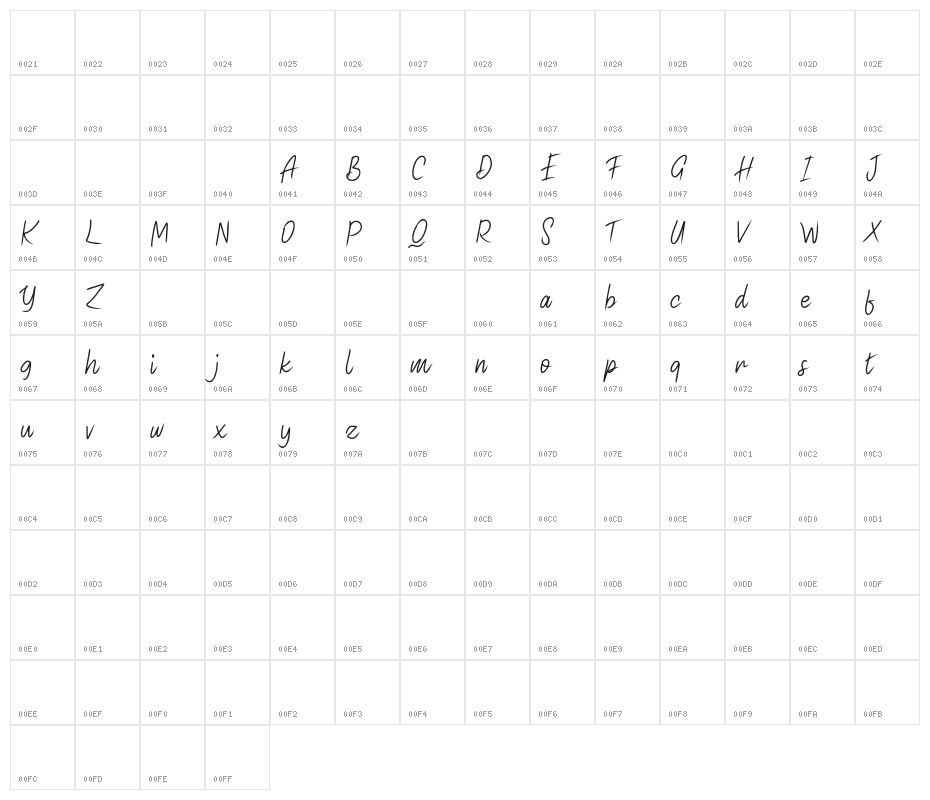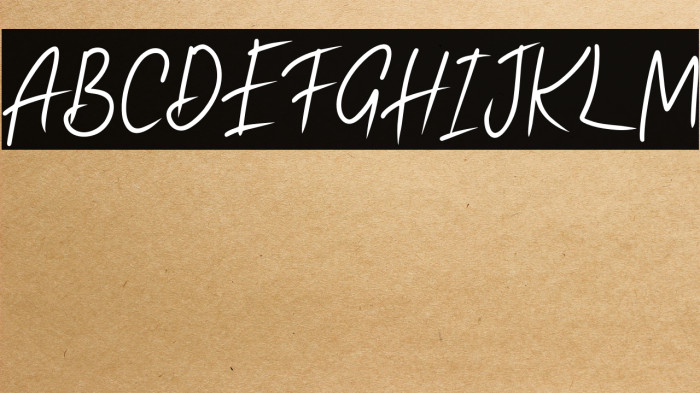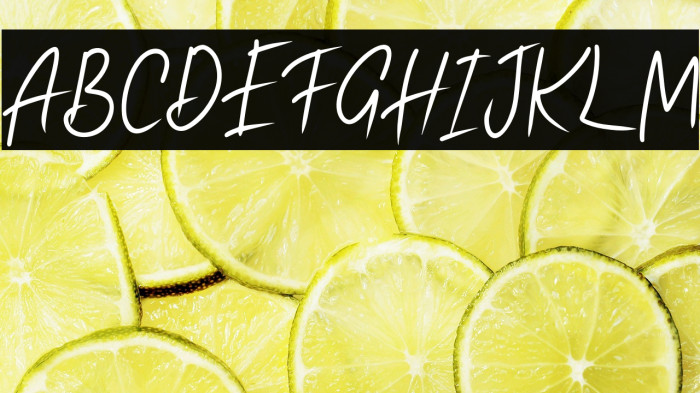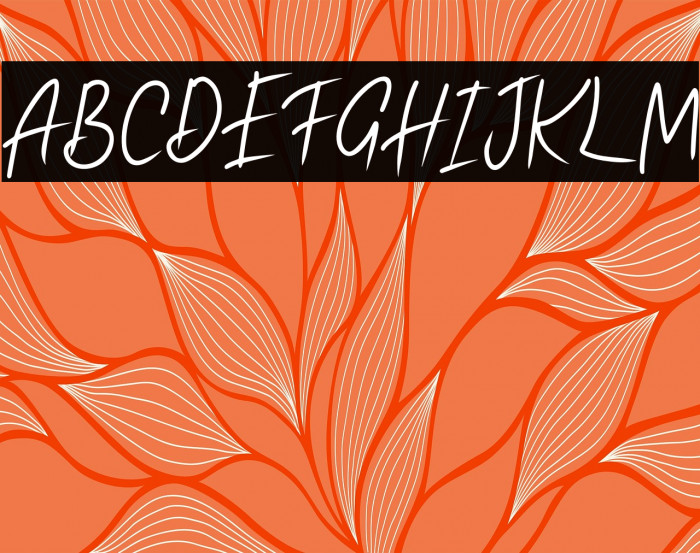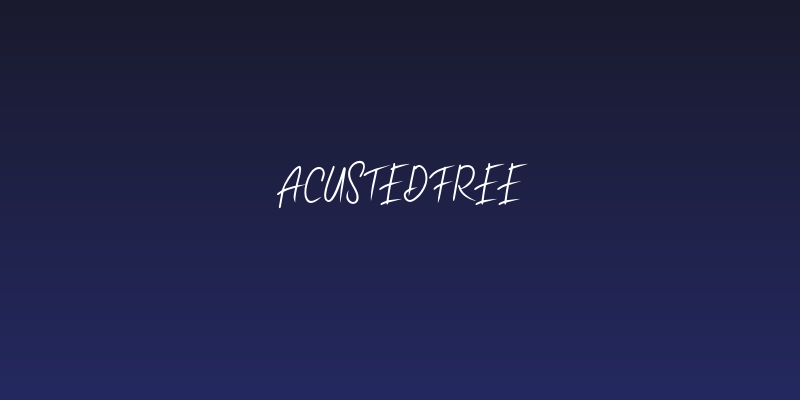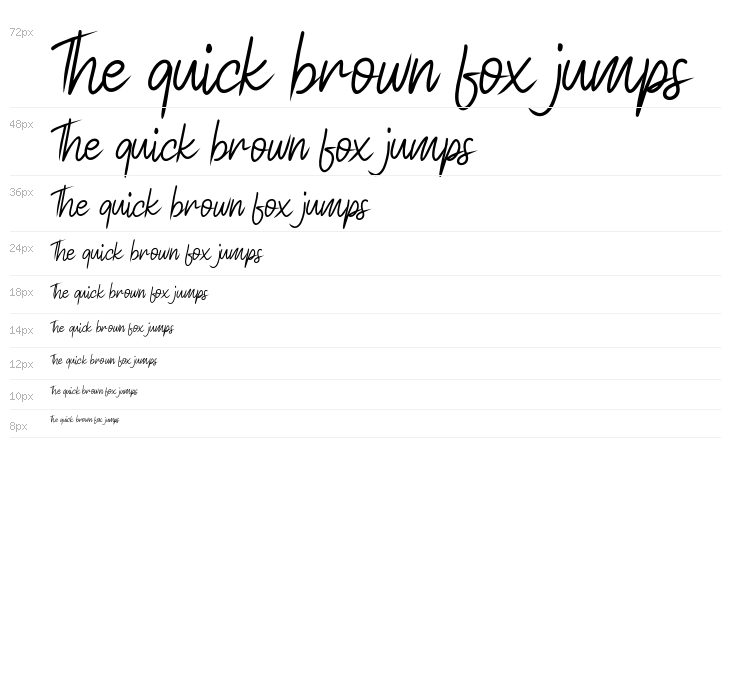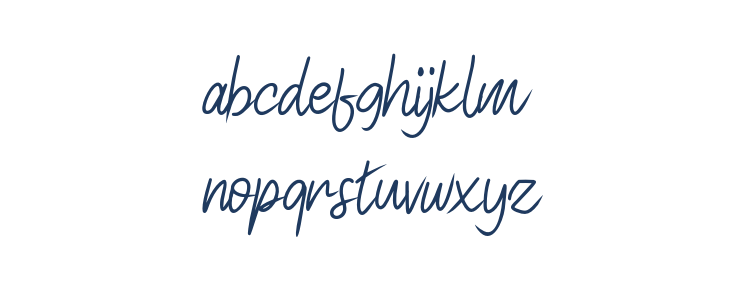
AcustedFREE Font
AcustedFREE Description
This font features a dynamic and fluid script style, characterized by its elegant and flowing letterforms. The uppercase letters exhibit a graceful, slightly slanted appearance, with smooth curves and a consistent stroke width that enhances readability. The lowercase letters maintain the same fluidity, with a natural handwritten feel that adds a personal touch. The font's overall design is both sophisticated and approachable, making it suitable for a variety of applications. Its balanced proportions and harmonious spacing contribute to its legibility, while the subtle variations in stroke thickness add visual interest without compromising clarity.
| Overall Style | Elegant, Handwritten |
| Use Case | Logos, Invitations, Greeting Cards |
| Proposed Projects | Ideal for wedding invitations, greeting cards, personal branding, and elegant packaging designs. |